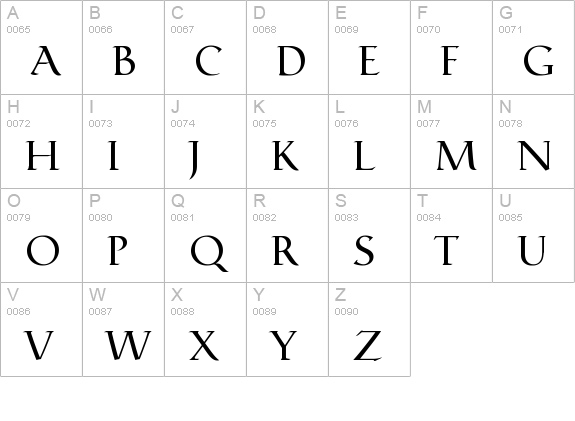
Catull (R) Regular OsF is the standard, neutral variant in the Catull typeface family \xE2\x80\x94 well suited to general body text, paragraphs, and standard typographic work.
Catull (R) Regular OsF is a timeless and elegant font that effortlessly combines classic sophistication with modern flair. Its refined serifs and graceful curves exude a sense of refinement and style, making it a perfect choice for a wide range of design projects. Whether used for editorial purposes, branding, or invitations, this font adds a touch of sophistication and class to any composition. One of the best features of Catull (R) Regular OsF is that it is freely available to download at FontsMarket.com. This means that designers and creators can easily access this exquisite font without any cost, making it an excellent choice for those looking to elevate their designs without breaking the bank. With its versatility and timeless appeal, Catull (R) Regular OsF is sure to become a staple in any designer's toolkit.